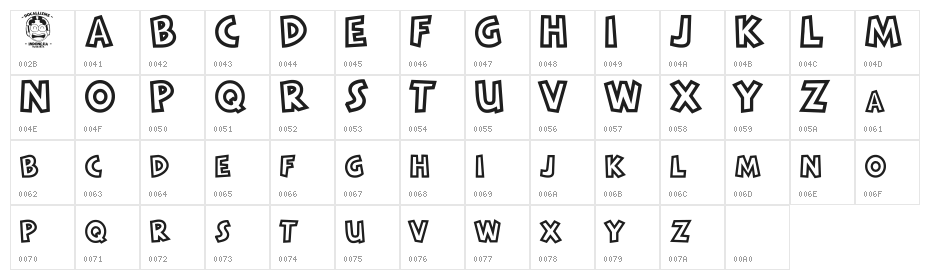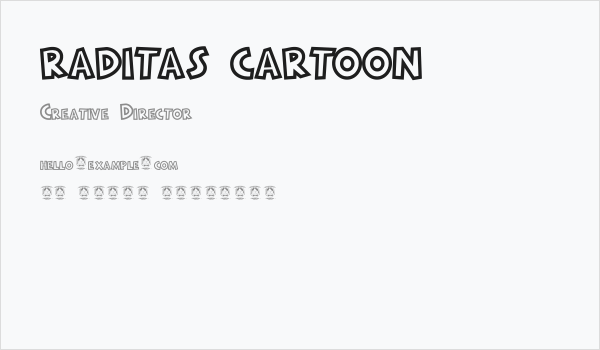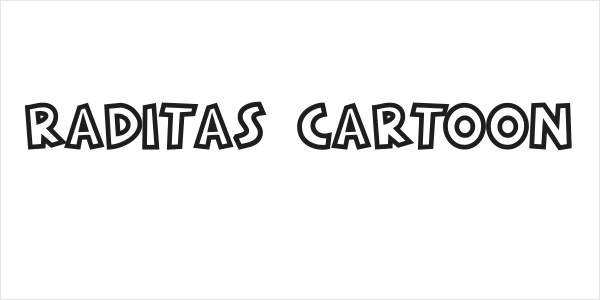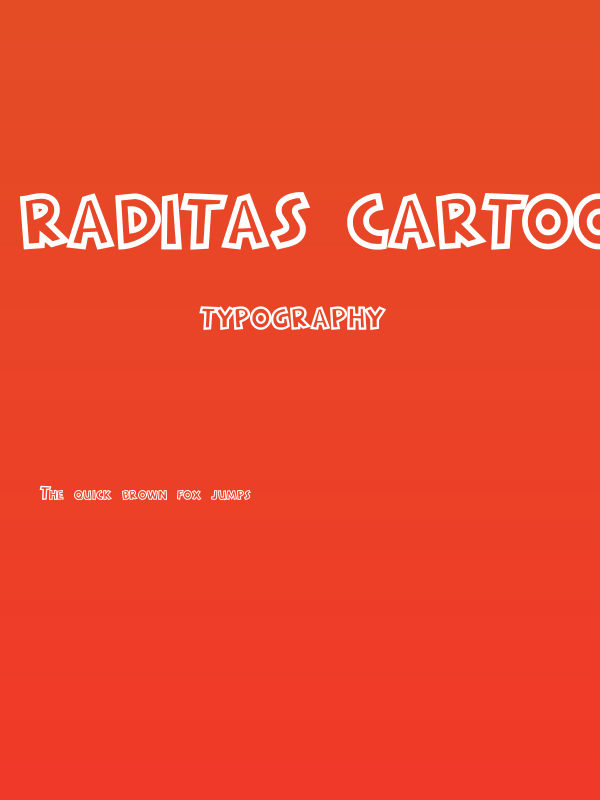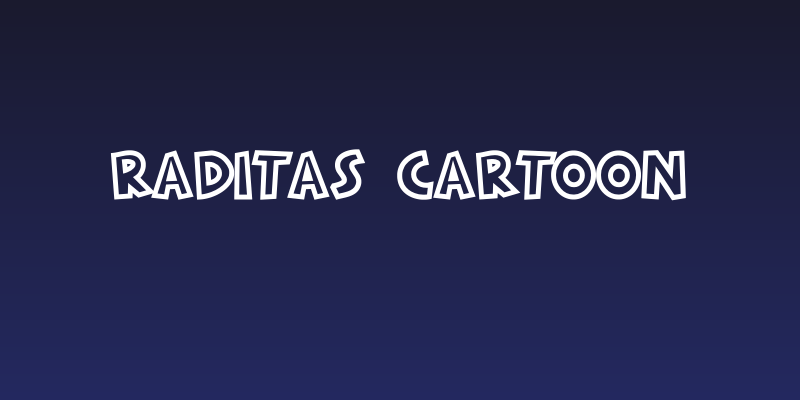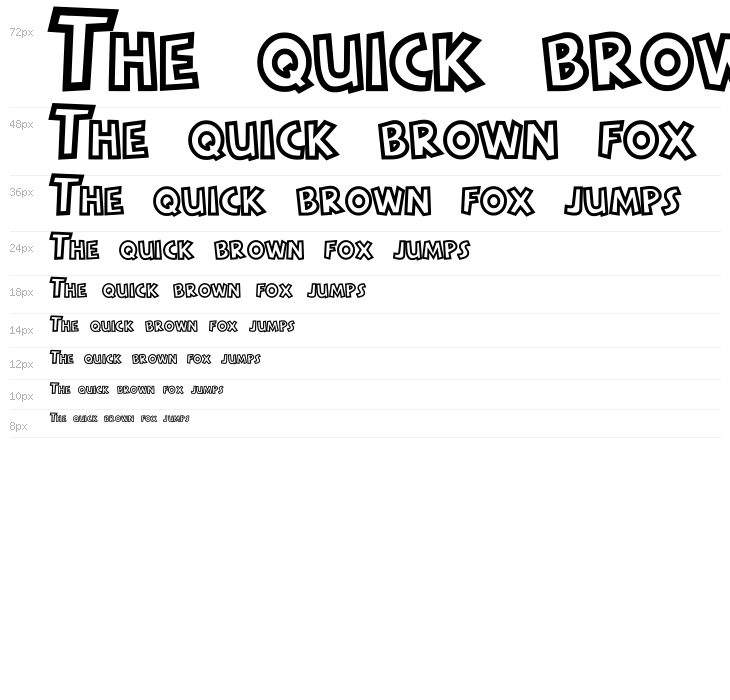
RADITAS CARTOON Font
RADITAS CARTOON Description
This font features bold, playful characters with a cartoonish style, perfect for capturing attention and conveying a sense of fun and whimsy. The letters are outlined with a thick black border, enhancing their visibility and making them stand out against various backgrounds. The design is reminiscent of classic comic book lettering, with exaggerated curves and angles that add to its dynamic appearance. This font is particularly suitable for projects that require a lively and engaging aesthetic, such as children's books, comic strips, or playful branding materials.
Overall StyleCartoonish, Playful
Proposed ProjectsIdeal for children's books, comic strips, playful branding, and eye-catching posters.